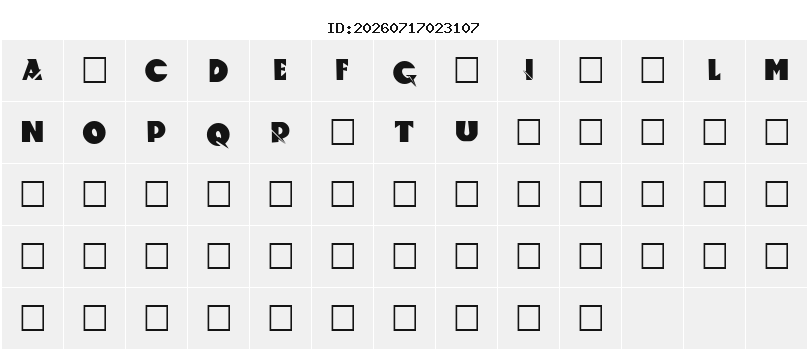
About ACCELERATOR.ttf
ACCELERATOR.ttf is a modern, elegant sans-serif font designed for ultimate readability and visual harmony. Perfect for branding, headlines, web design, and print materials.